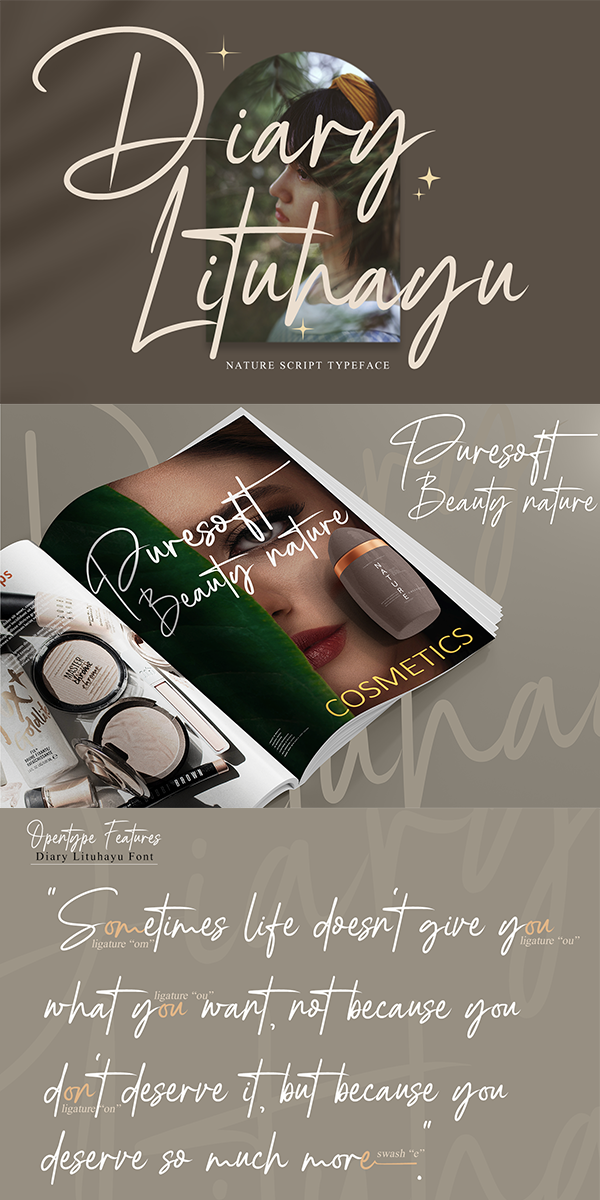
Diary Lituhayu Font
About Diary Lituhayu
Diary Lituhayu is Script Font with elegant and signature style, that are very beautiful,luxurious,and high class for creating handwritten-style logos, wedding stationery, photographer watermarks logos, modern websites, fashion branding, name card, wedding invitation, and all the identity of your business products.
-Multilingual Support for 83 Country
-Ligature Collections
-Stylistic Alternates